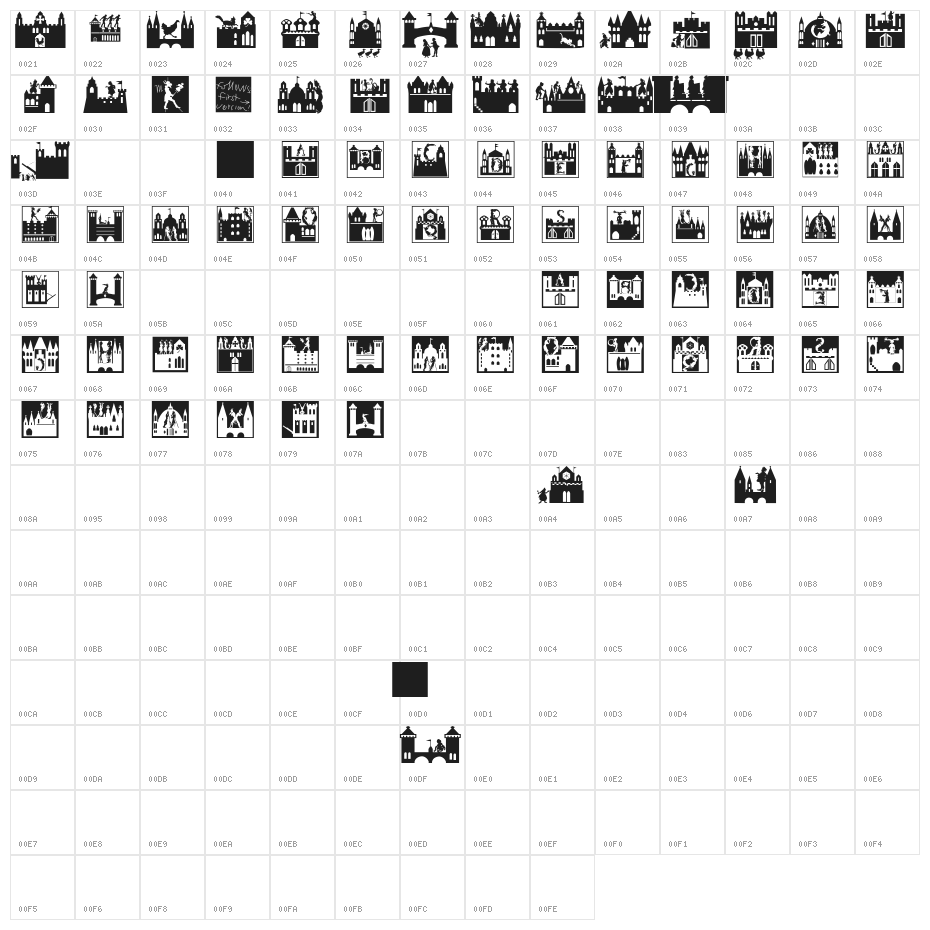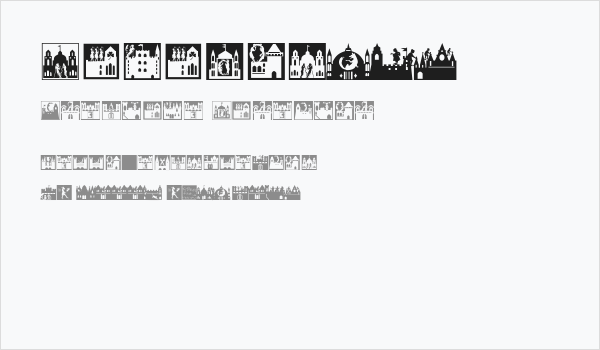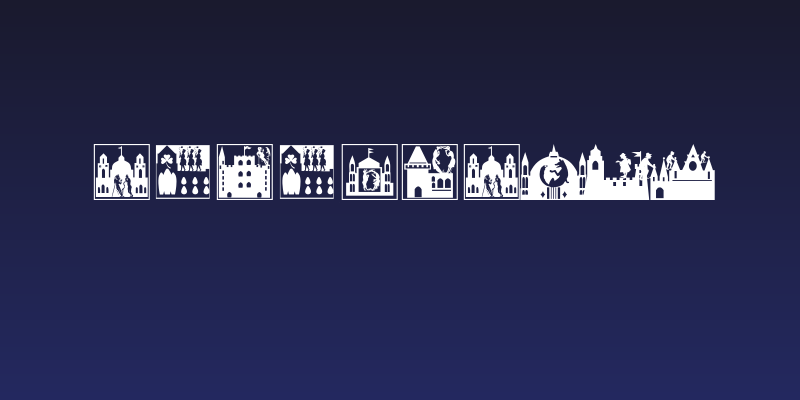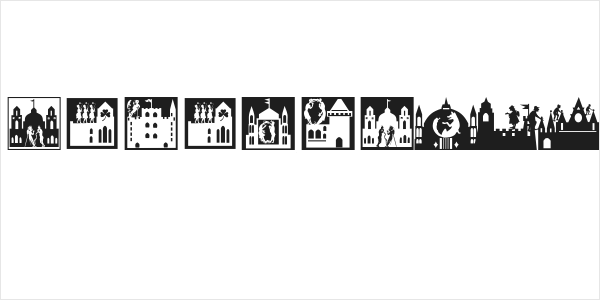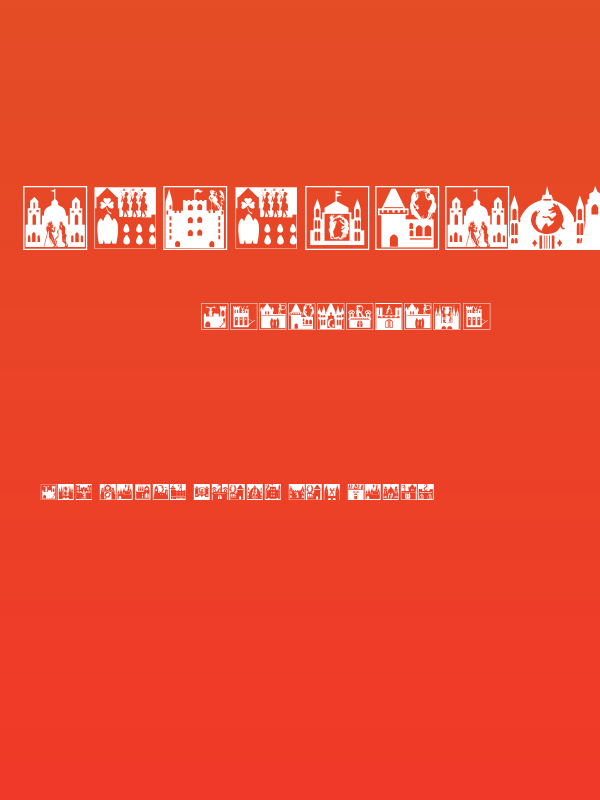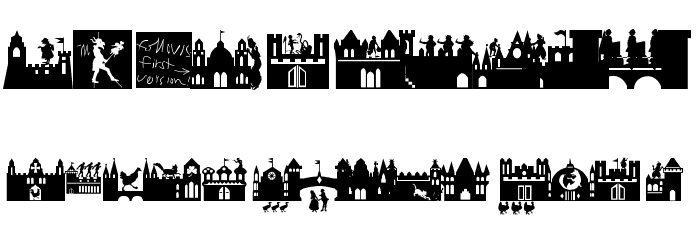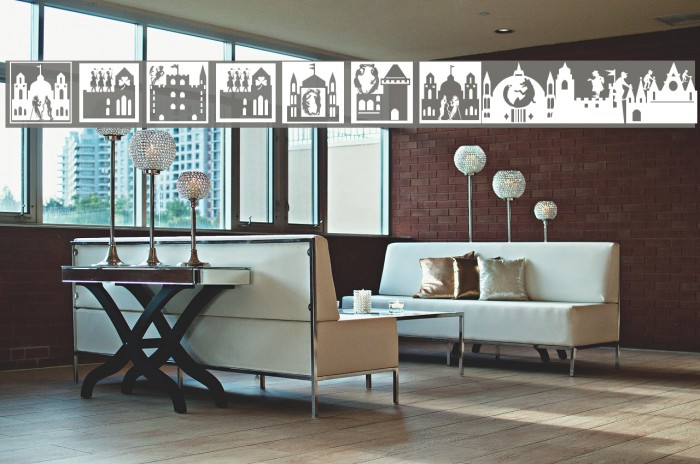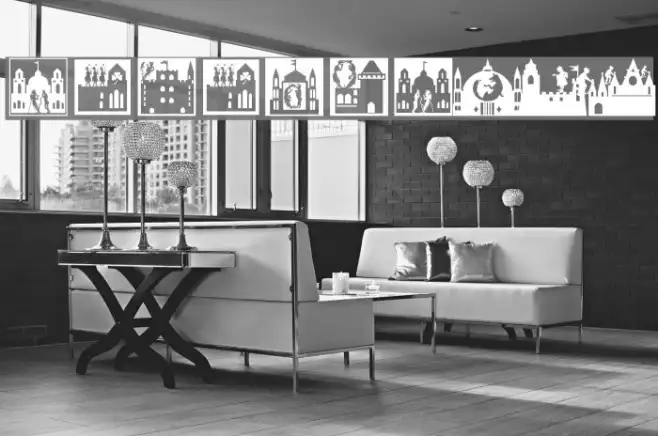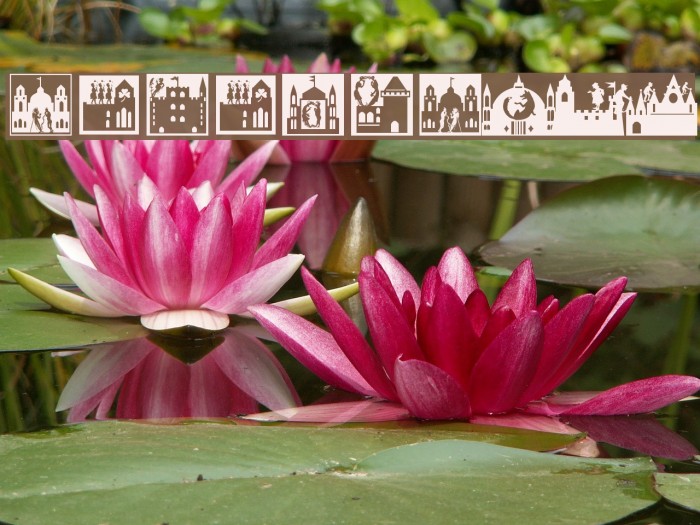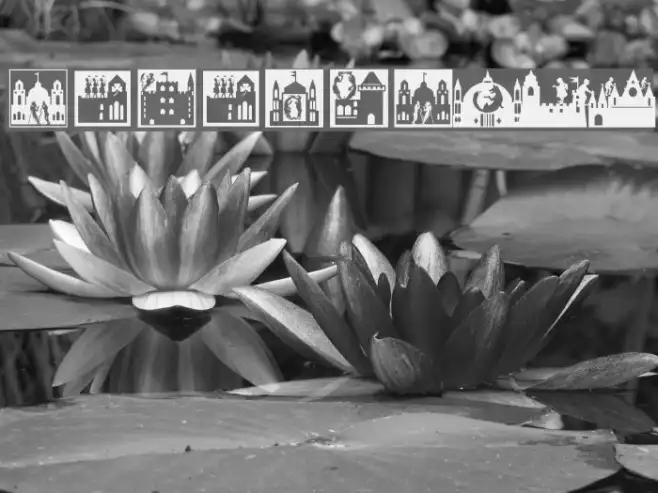
Minidom-07 Font
Minidom-07 Description
This is a highly decorative and illustrative font featuring intricate designs of castles and fantasy-themed architecture. Each character is represented by a unique silhouette of a building or scene, creating a whimsical and storybook-like appearance. The font is detailed, with each letterform encapsulated within a square, showcasing various elements such as towers, turrets, and mythical creatures. The style is reminiscent of fairy tales and medieval settings, making it visually captivating and imaginative.
| Use Case | Logos, Posters, Book covers |
| Proposed Projects | Ideal for children's books, fantasy-themed event invitations, themed party decorations, or any project requiring a whimsical and imaginative touch. |